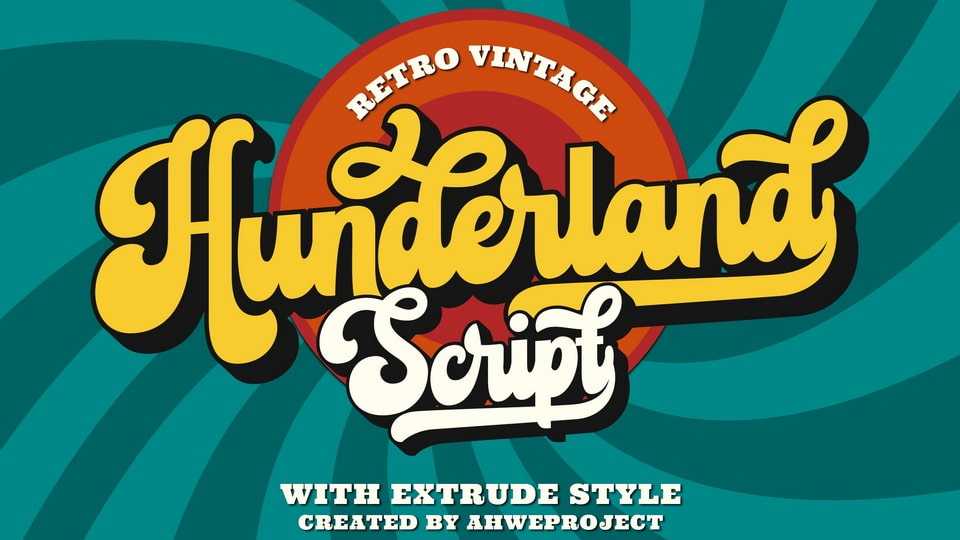
Download Hunderland font, a bold retro-style script display typeface. With a retro and groovy vibe, this font is suitable for a wide pool of design ideas.